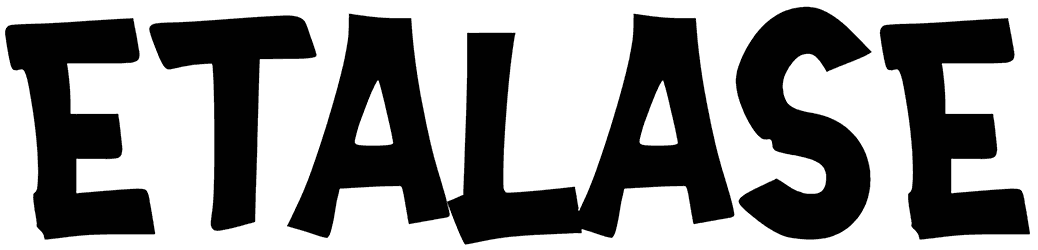
e Etalase Font
A playful letterform like the e Etalase font can be used for varied modern designs and give them a vivid mood. The bold characters of this cartoon font are going to attract a lot of attention to your design, such as a summer camp flyer. Let’s put this cool and cute font on your novel layouts and give them a memorable vibe.